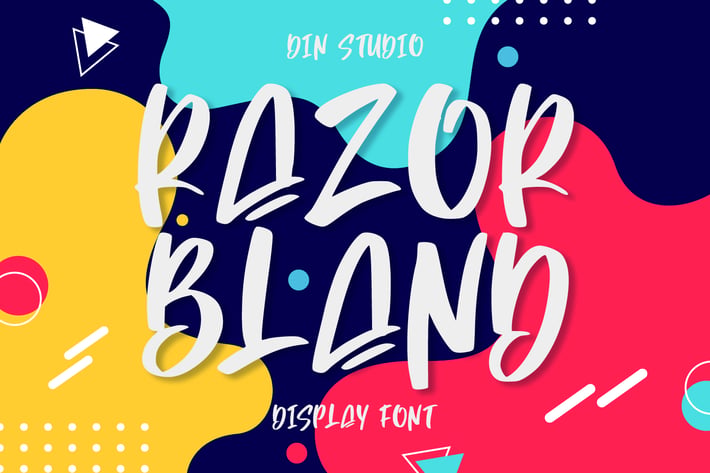
Razor Bland-Display Font
Din-Studio
Razor Bland is a classy handwritten font. Made for any professional project branding. It is the best for logos, branding and quotes. Every letter has a unique and beautiful touch.